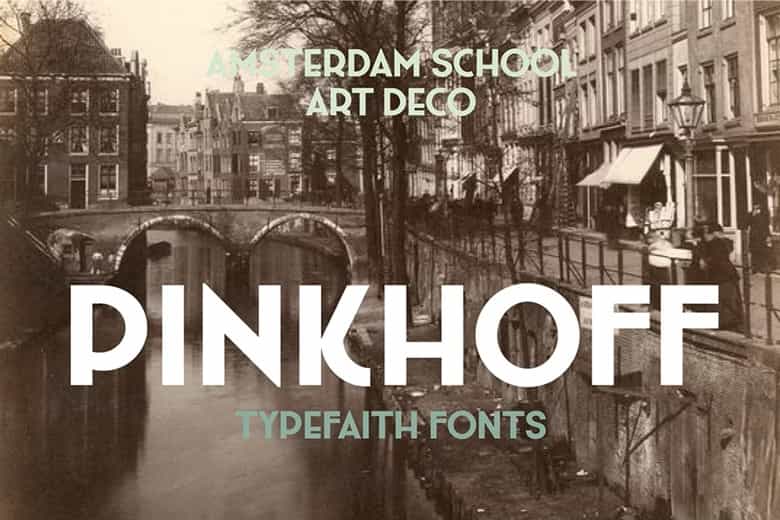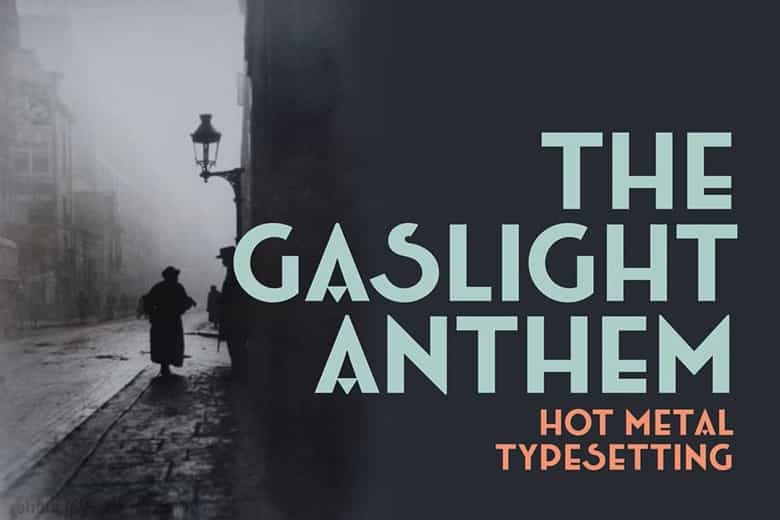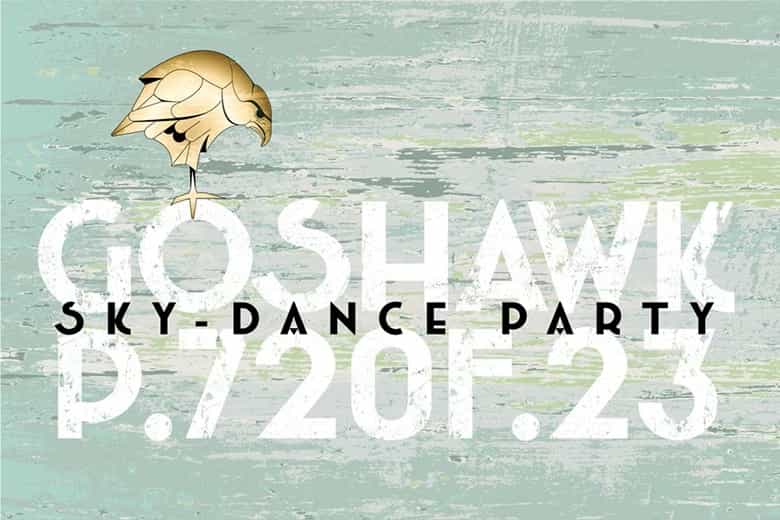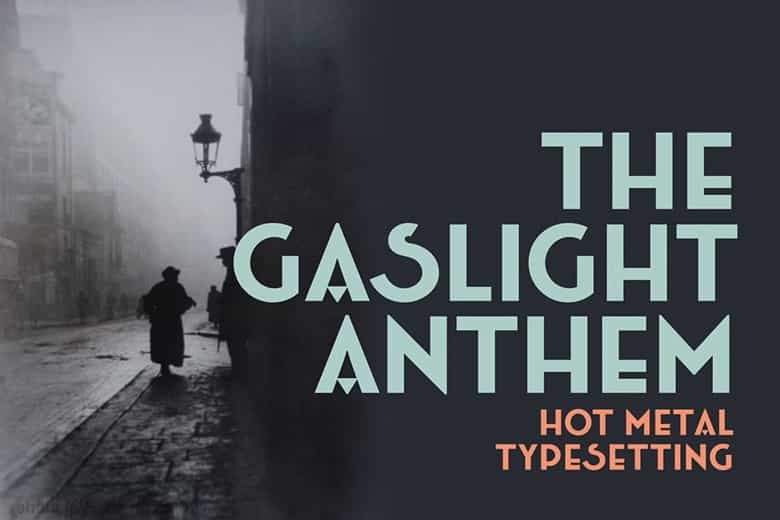
Pinkhoff Caps Font
Pinkhoff Caps is an unique beautiful Amsterdam School fonts is wonderful and brings to life one of the most lively decades that is the roaring twenties and the crashing thirties. A modern style font which gives an art deco feel and has a smell of thirties to it that adds a touch of class. This is the work of Leon Hulst, and as one can note from the layout examples, nostalgia is equal to ruin, and it is very fashionable now to have a ruin feeling to the retro looking objects.